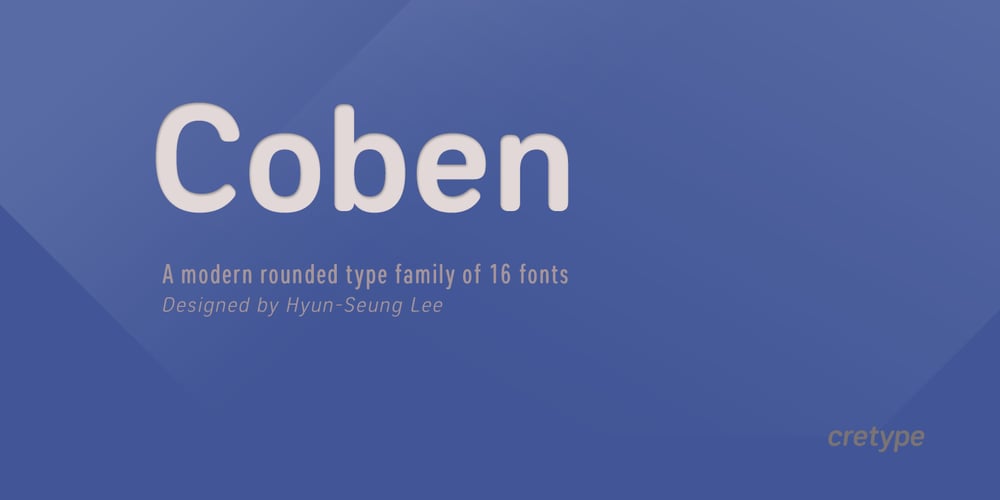
Coben Font Family was designed by Hyun-Seung Lee and published by cretype. Coben contains 16 styles and family package options. Coben is a modern and futuristic san-serif font family. Simple and modern shapes with a tall x-height make the text legible and the spaces between individual letter forms are precisely adjusted to create the perfect typesetting. Coben Family consists of 2 widths (Condensed, Normal), 4 weights (Light, Regular, Medium, Bold), and Italics for each format. Coben provides a Central European character set. Each font includes support for Tabular numbers, Old-style Figures and Opentype Features such as Proportional Figures, Numerators, Denominators, Superscript, Scientific Inferiors, Subscript, Fractions and Standard Ligatures. We highly recommend it for use in books, web pages, screen displays, and so on.